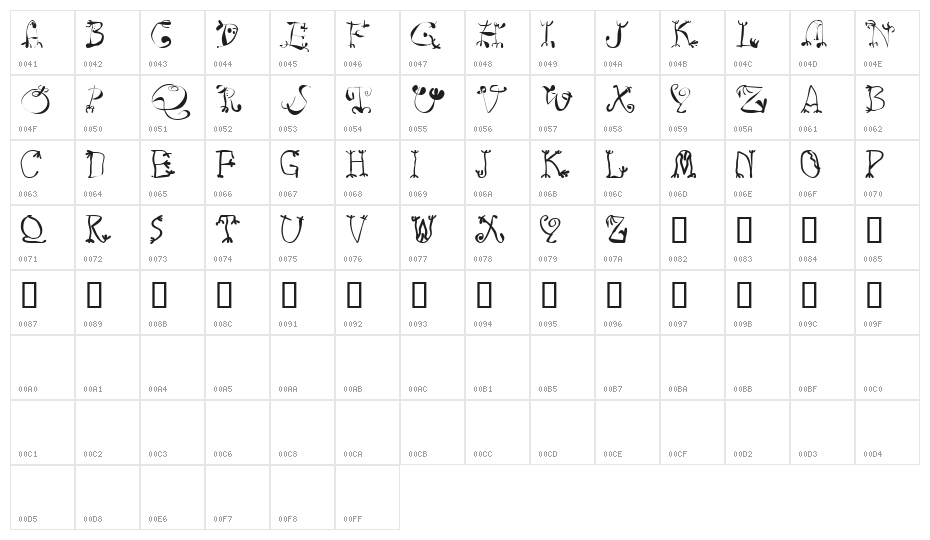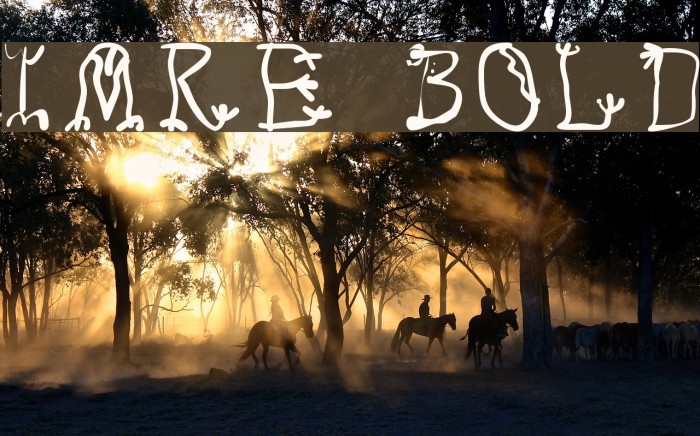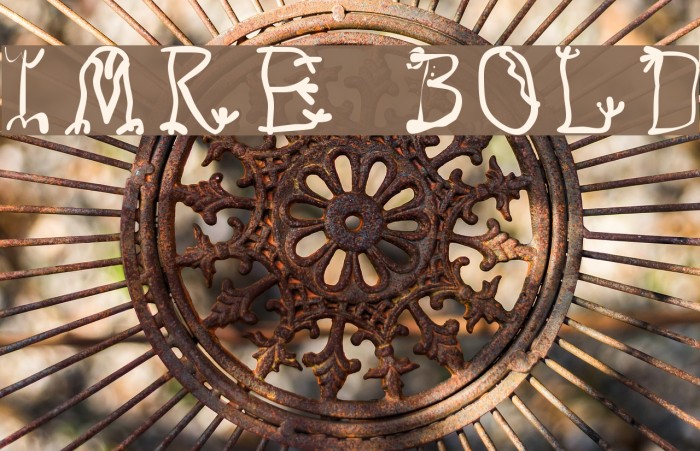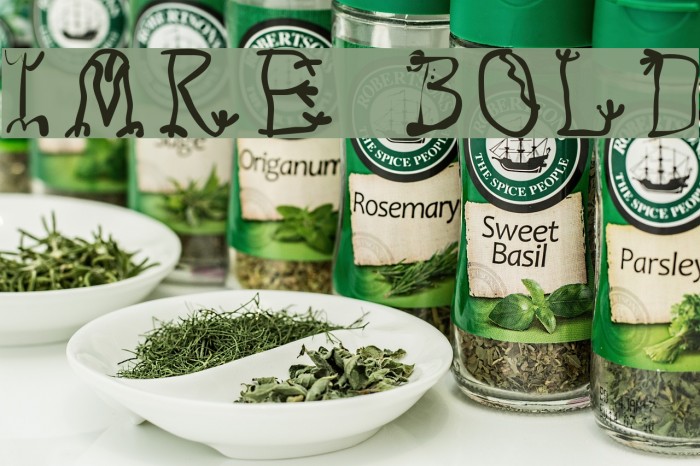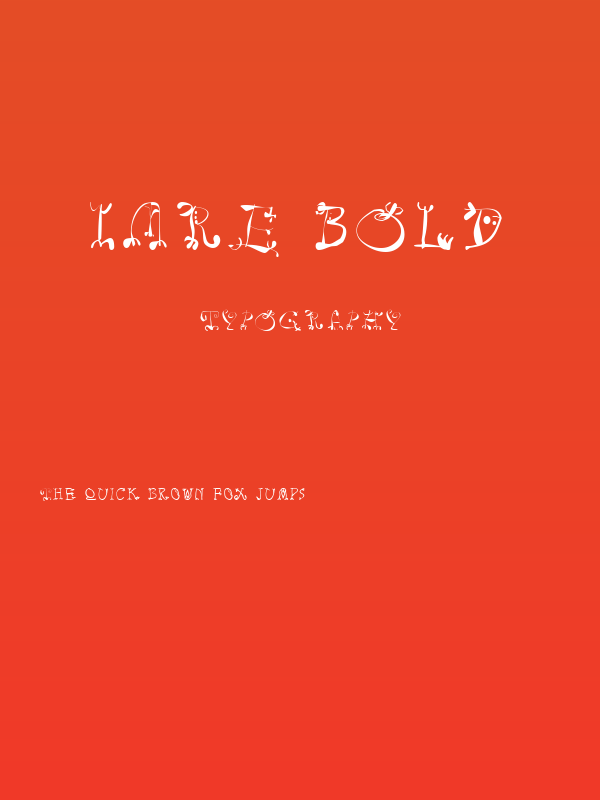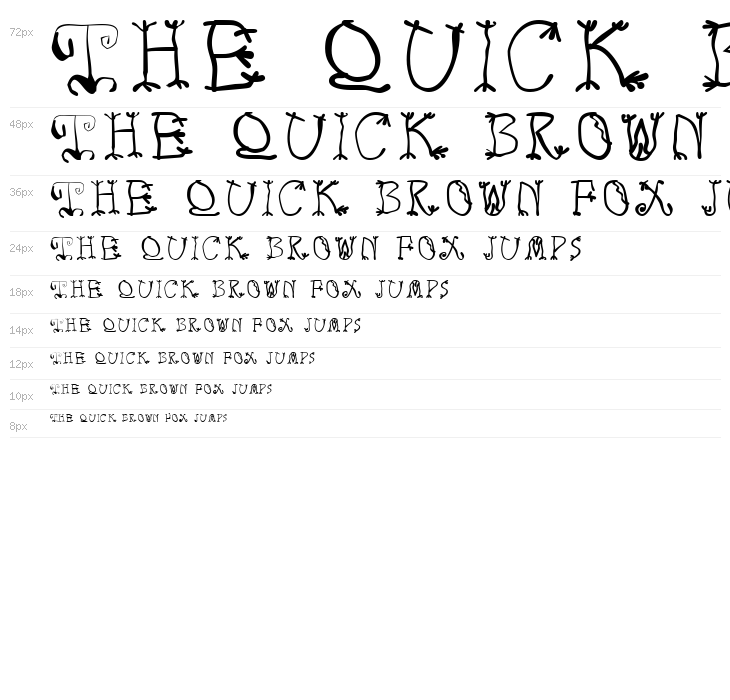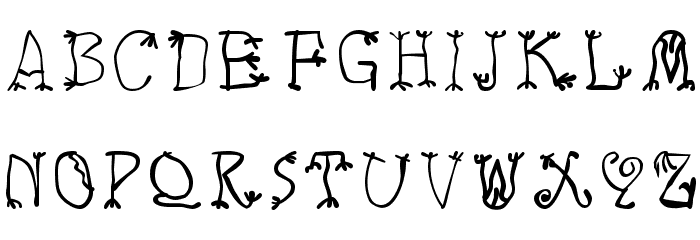
Imre Bold Font
Imre Bold Description
This font features a whimsical and decorative style, characterized by playful and intricate details that resemble vines or tendrils extending from each letter. The uppercase letters are particularly ornate, with each character exhibiting unique embellishments that add a sense of movement and organic flow. The lowercase letters maintain a similar aesthetic, though slightly more restrained, ensuring readability while preserving the font's distinctive charm. The overall design is reminiscent of a fairy tale or fantasy theme, making it ideal for creative and artistic projects.